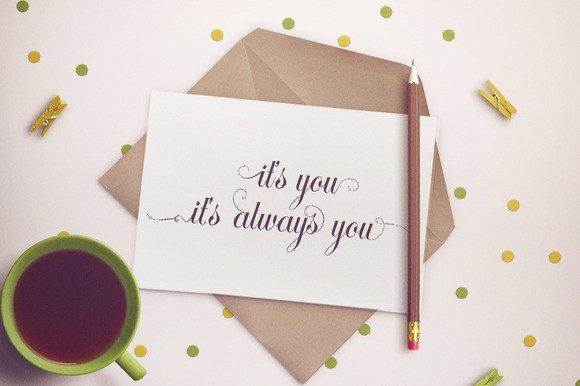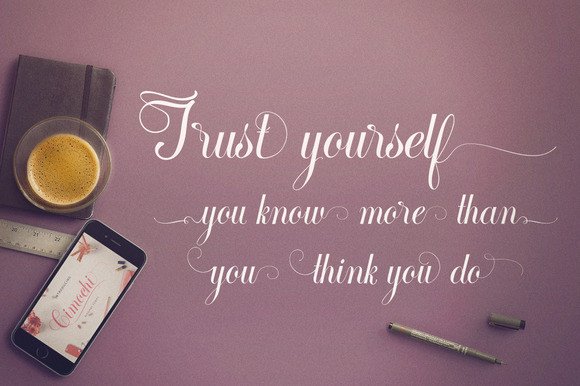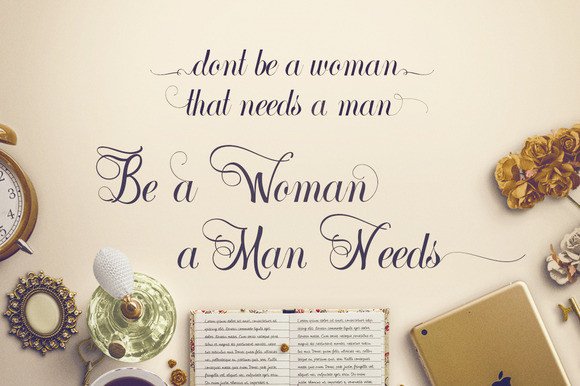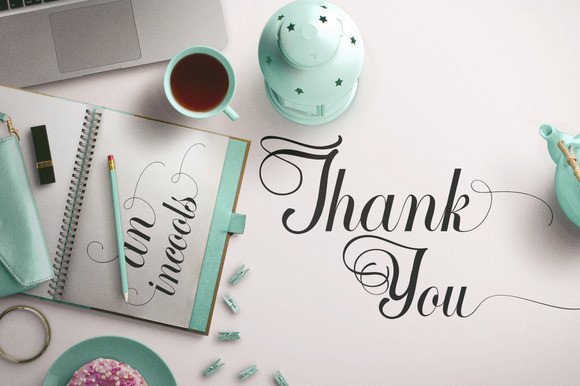
Cimochi Font
About Cimochi Font
Cimochi is a gorgeous script font, both bold and romantic.  This font looks perfect for Valentine’s Day designs, or for other romantically inclined styles and projects.